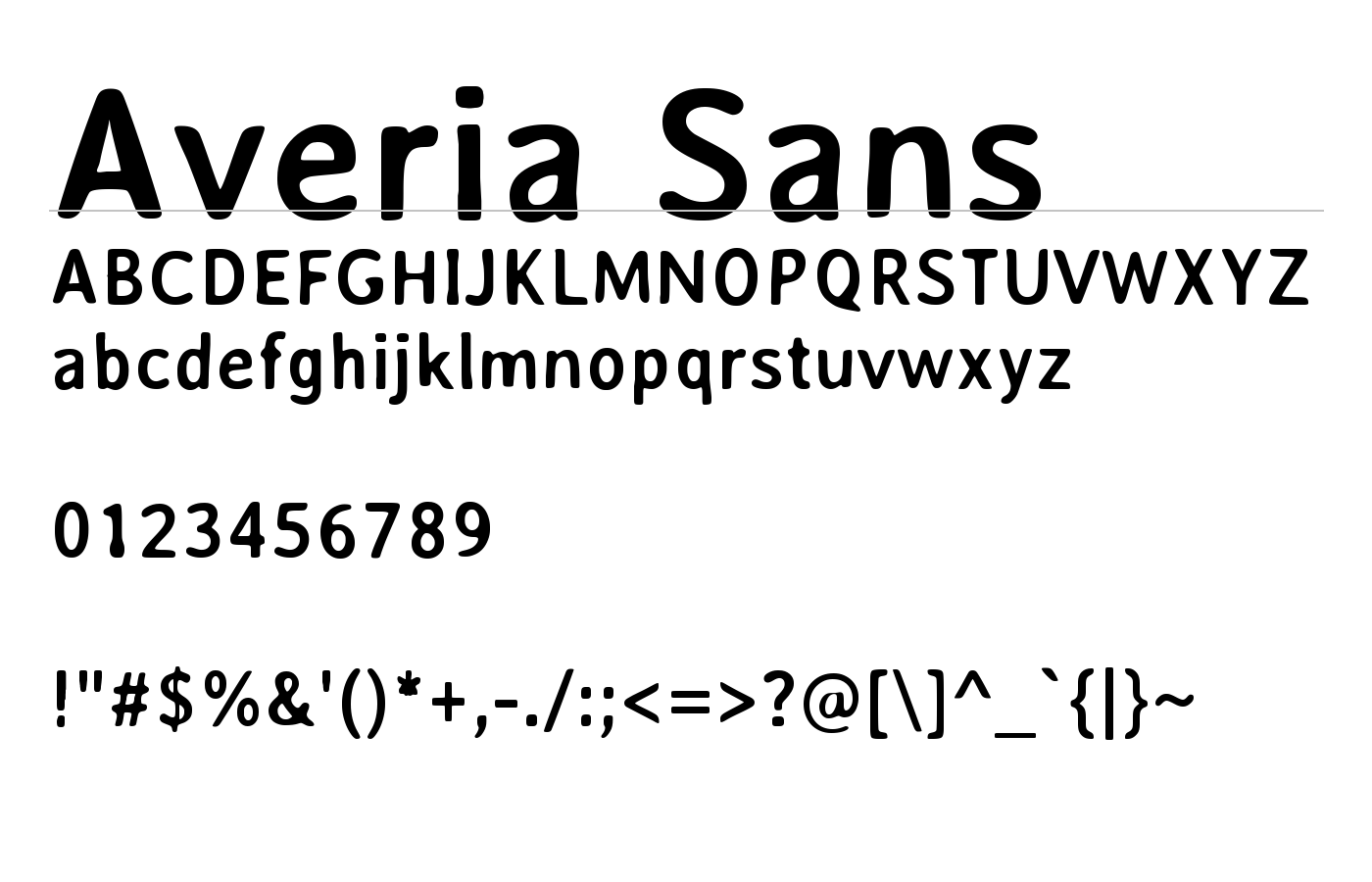
Averia Sans is a friendly and approachable sans serif font characterized by its slightly irregular, hand-drawn style with rounded edges and moderate stroke contrast. It features a casual, informal feel with a balanced x-height and open letterforms, making it highly readable and versatile. This font works well for creative projects, educational materials, and branding that aims to feel warm and inviting, while maintaining clarity and charm.
Averia Sans Font
About Averia Sans Font